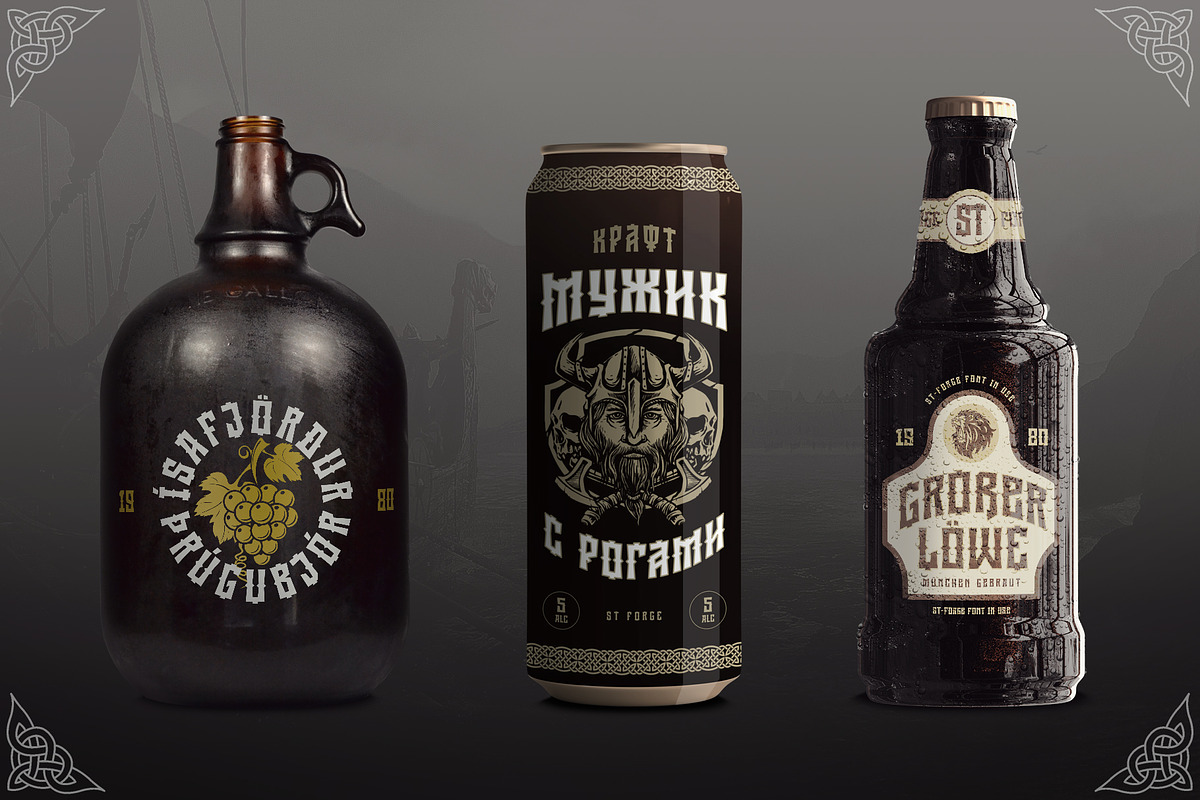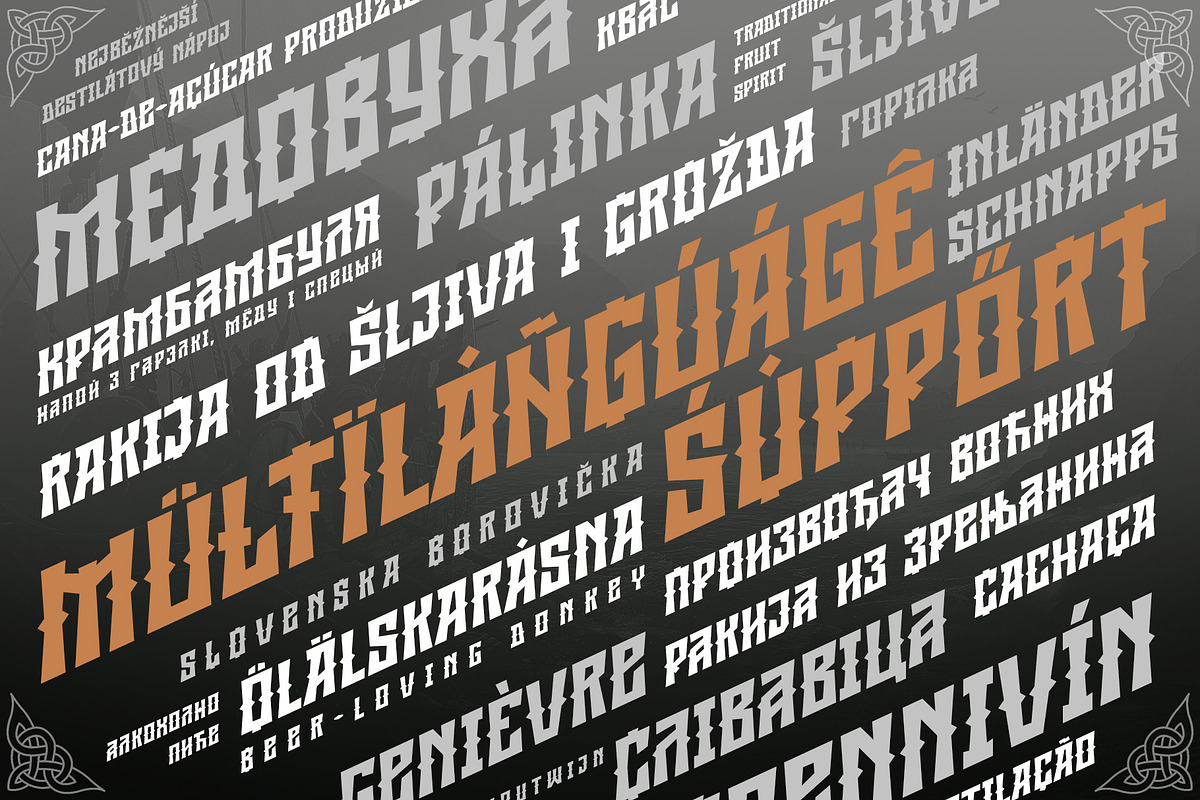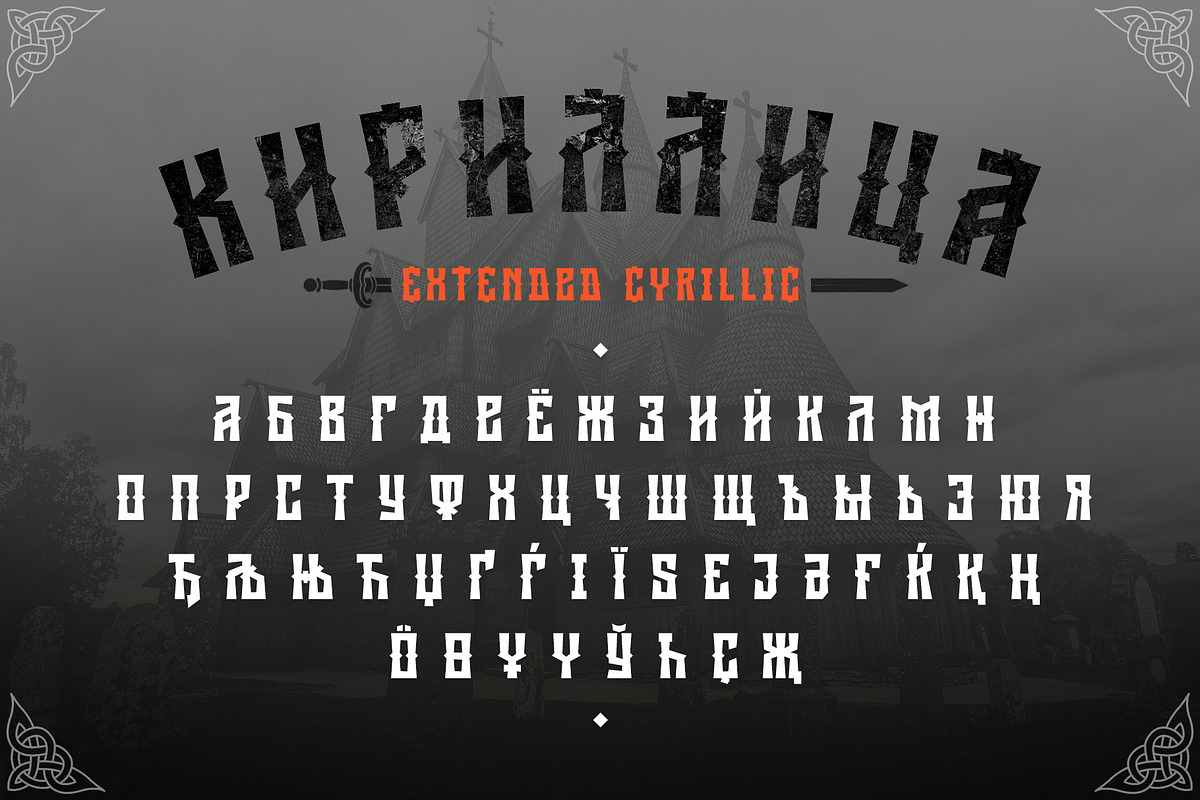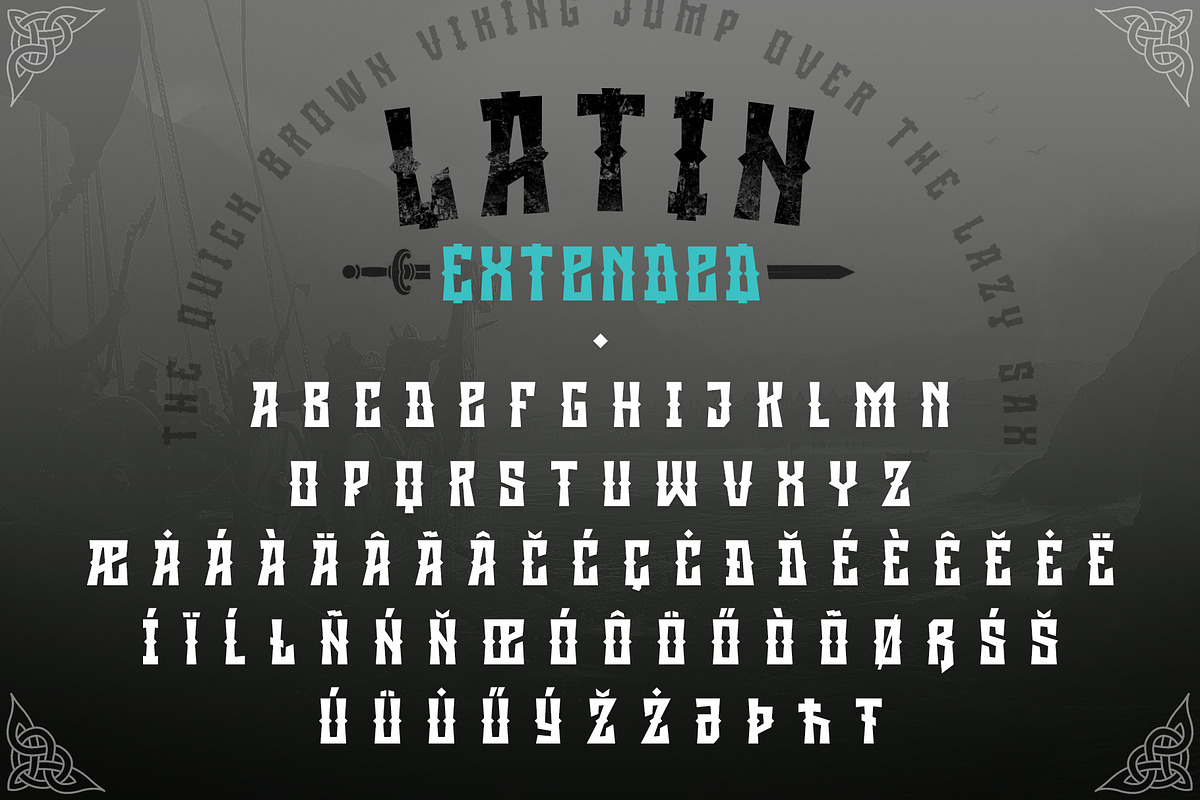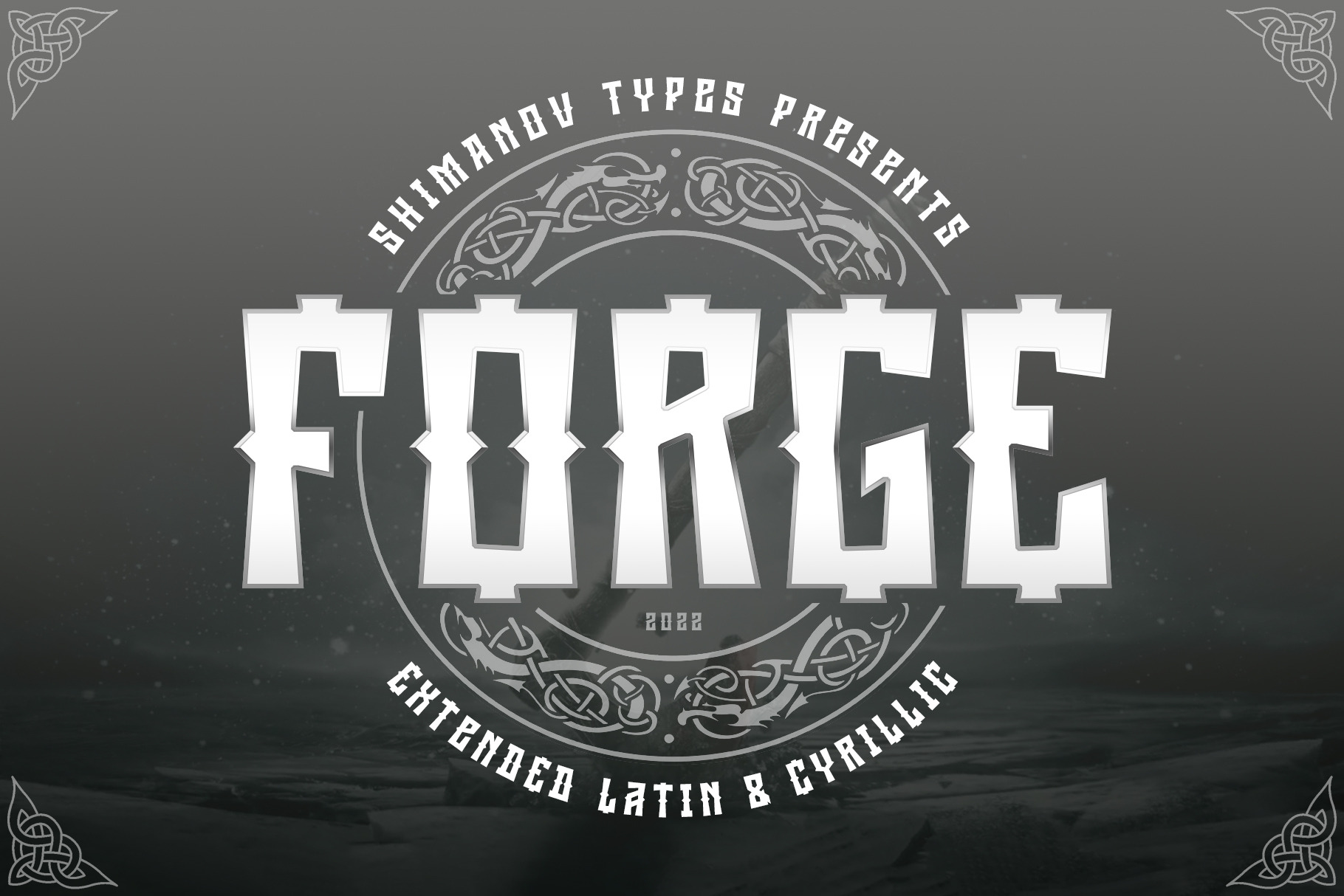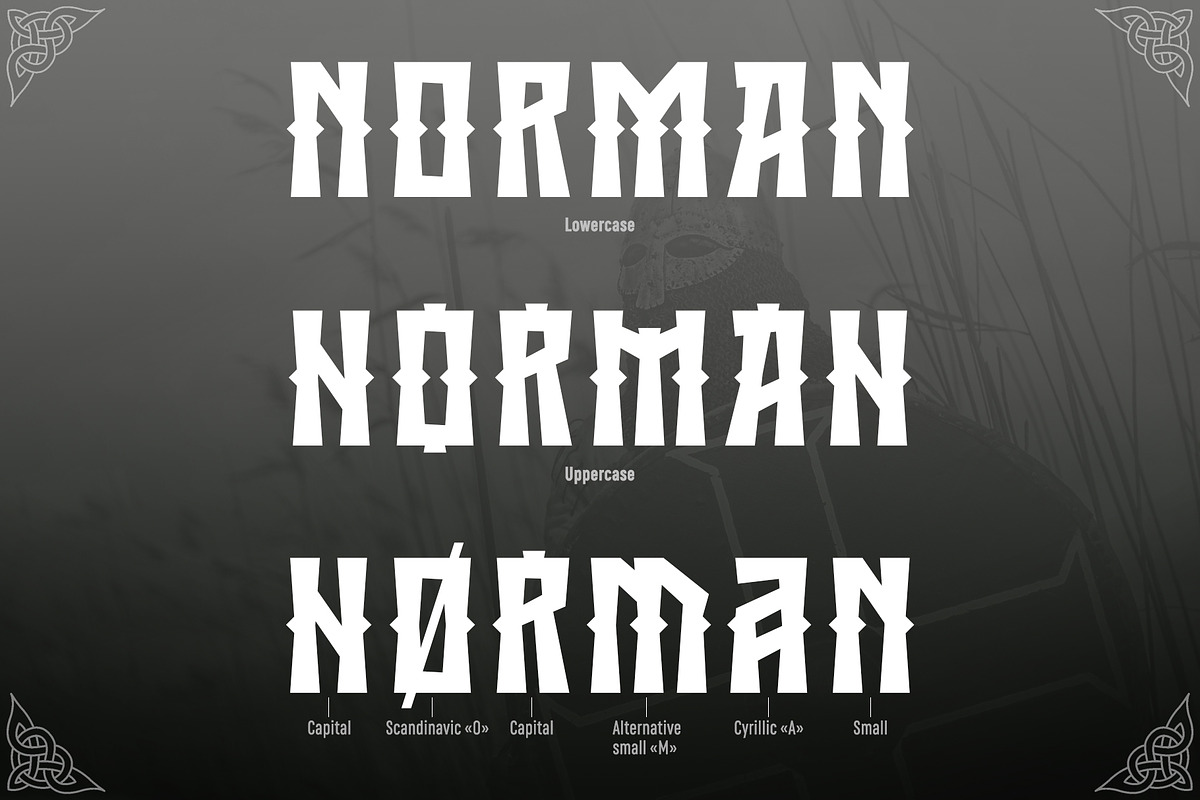
ST-Forge severe display font
ST-Forge is severe display font with Nordi flow. It has a taste of ethnic and historical scandinavian and slavic letters. "ST-Forge" can be used for a wide range of tasks: movie titles, poster design, web design, branding and packaging works, illustrations, badges and other typography works. It has two slylistic variations and you can play mixing uppercase and lowercase letters.
It has Extended LATIN and Extended CYRILLIC letters, numerals and basic punctuation. Supports 20+ europian languages.